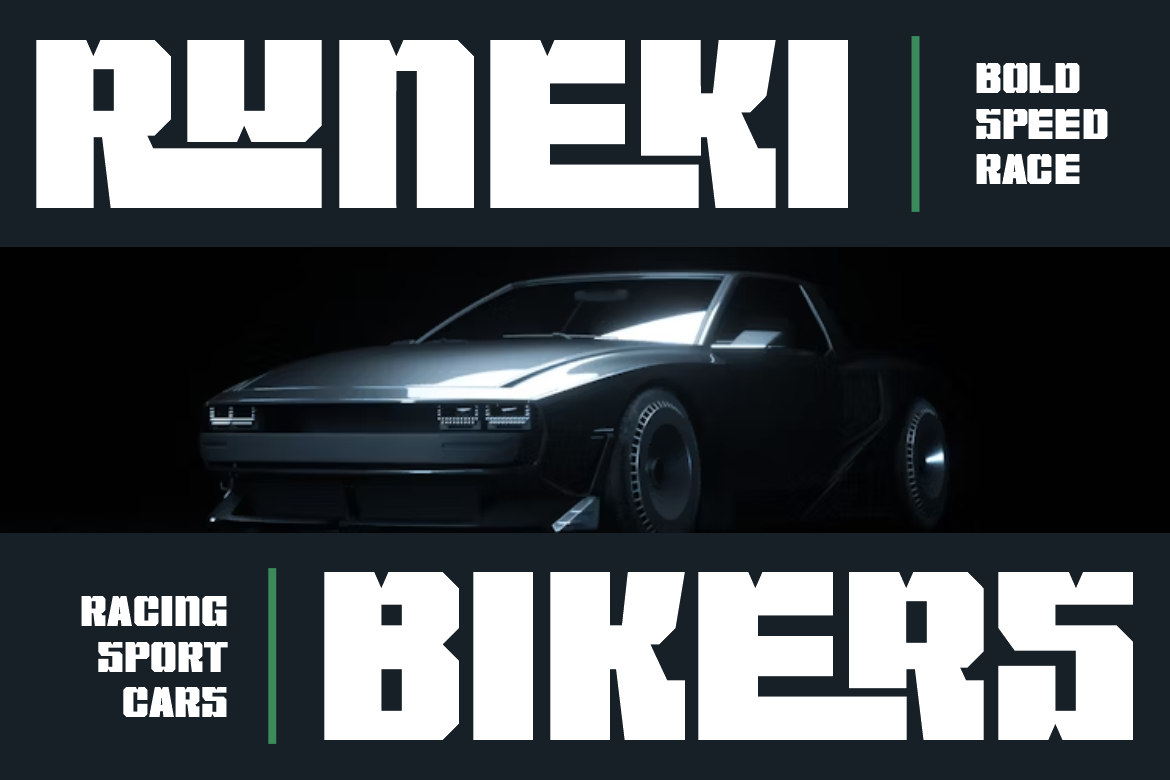
Runeki Bikers - Racing Car Font
Runeki Bikers Font is a best and authentic display font. This font can be used for your various needs. We provide various themes and font styles. visit our profile to get a wide variety of themes and different font styles you need.